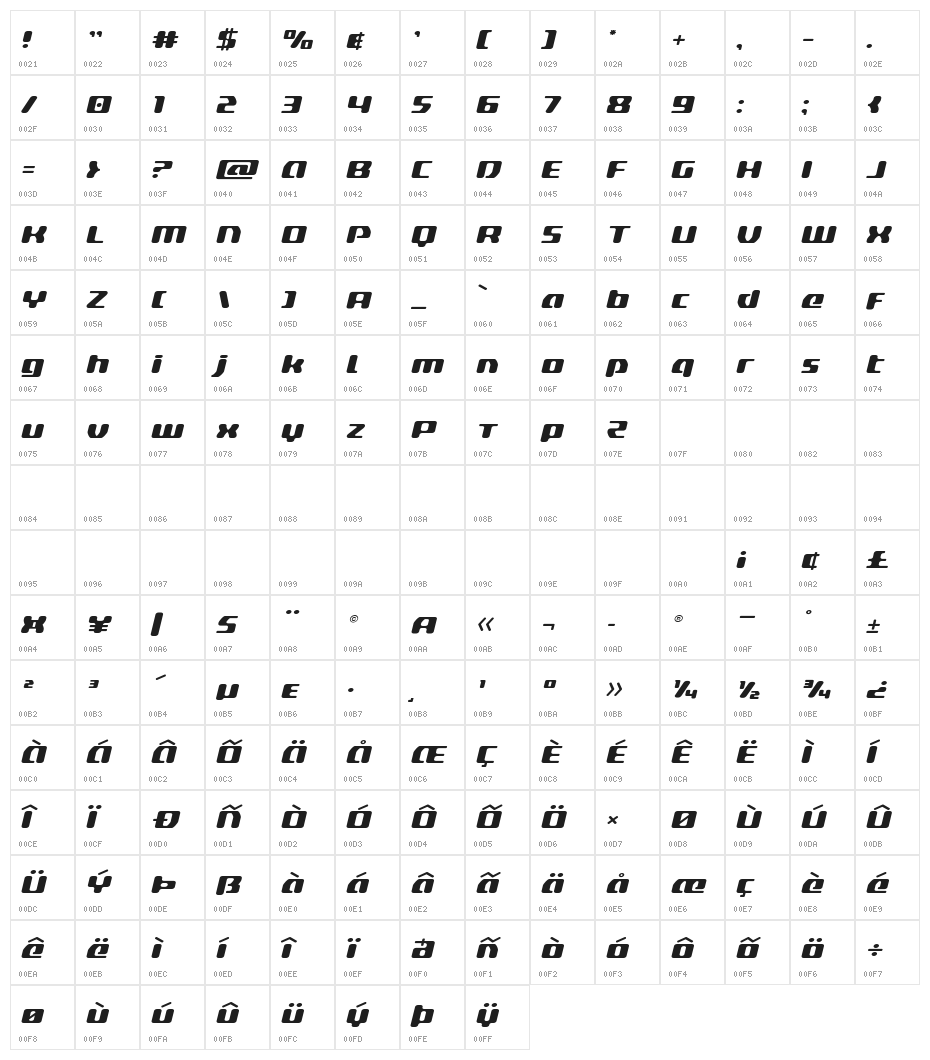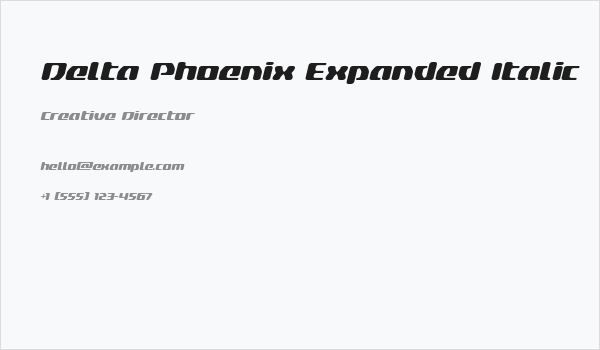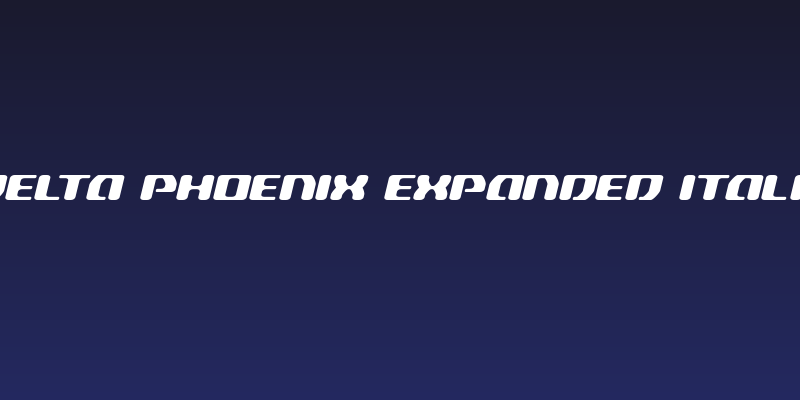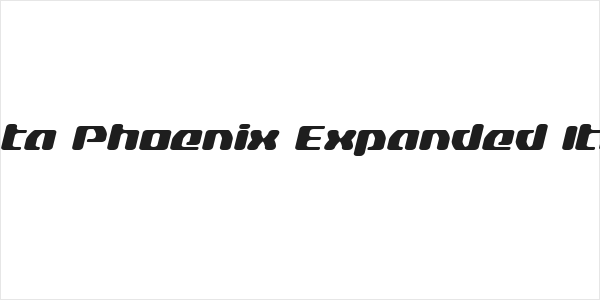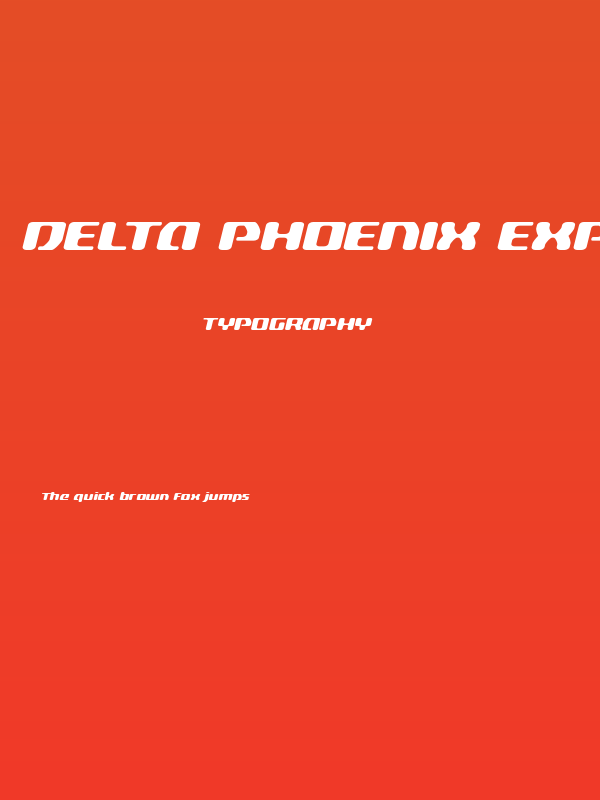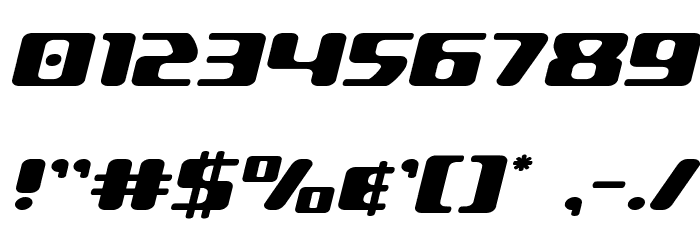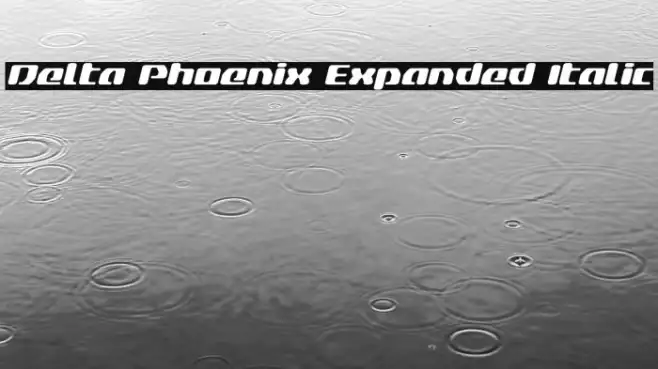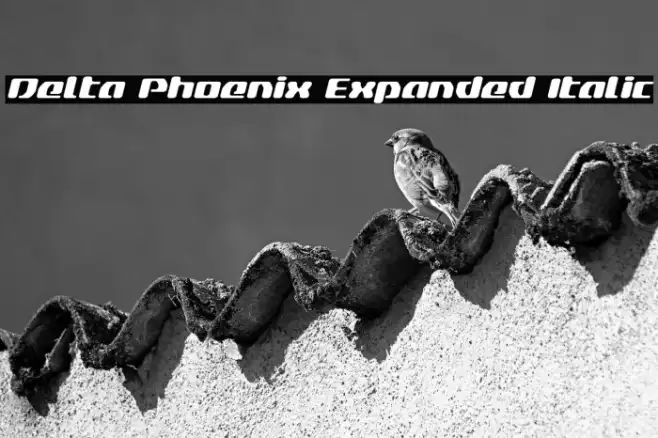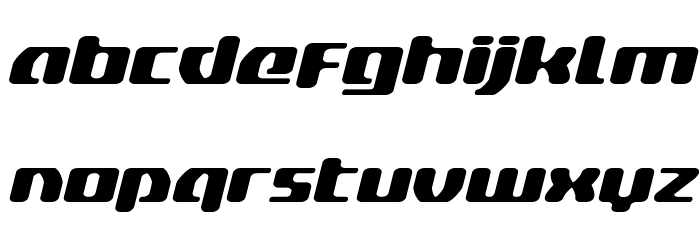
Delta Phoenix Expanded Italic Font
Delta Phoenix Expanded Italic Description
This font features a bold and dynamic style with an italic slant, giving it a sense of motion and energy. The characters are expanded, providing a wide and impactful appearance. The design incorporates smooth curves and sharp edges, creating a futuristic and modern aesthetic. The uppercase and lowercase letters maintain a consistent style, while the numerals and special characters complement the overall look. This font is ideal for projects that require a strong and eye-catching visual presence.
| Proposed Projects | Ideal for branding, sports team logos, futuristic designs, and dynamic advertising materials. |